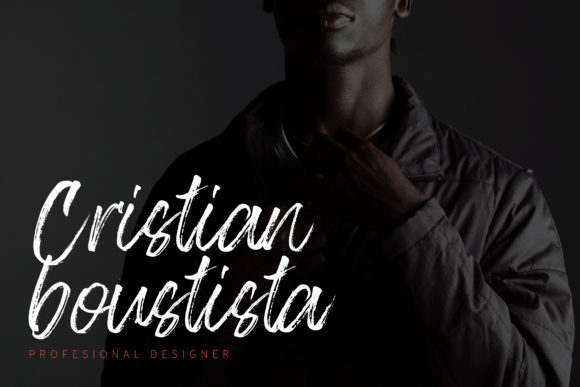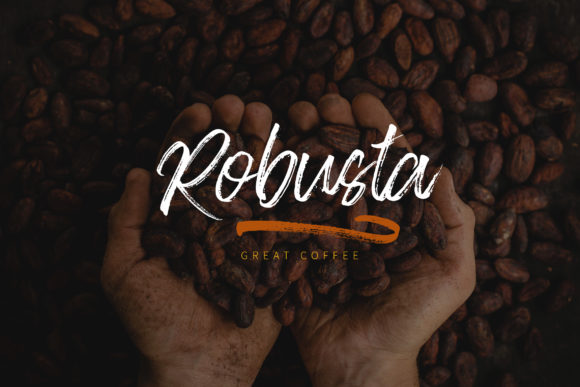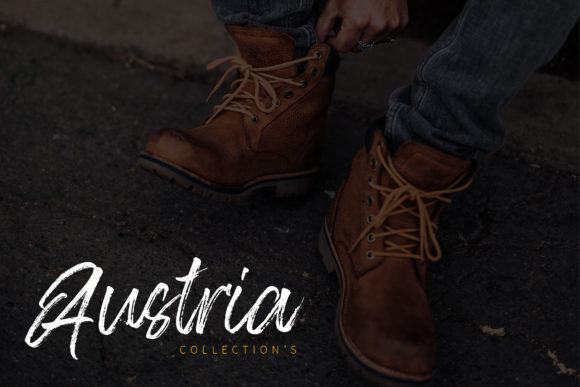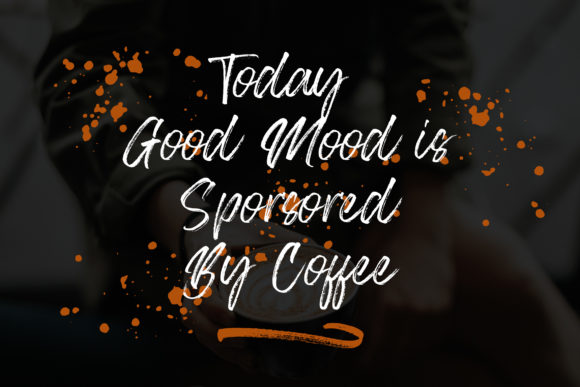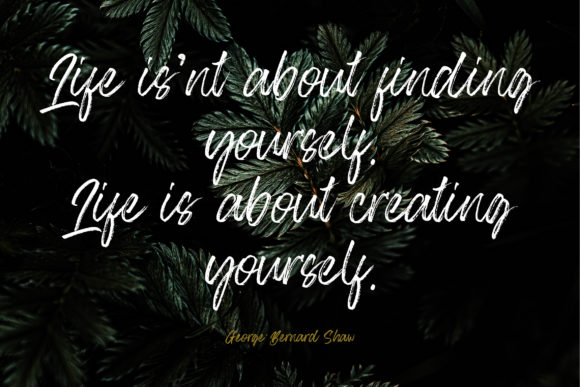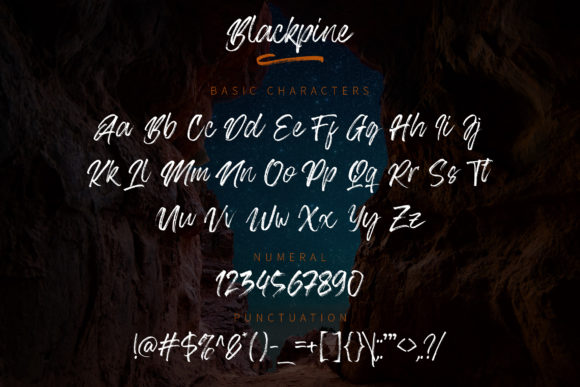
The Designer’s Delight: Getting to Know Blackpine Font
I’ll never forget the time I was working on a branding project for a crafty client, and I just couldn’t find the right font to match her fun and quirky vibe. I scrolled through pages of font libraries, but nothing seemed quite right. That’s when I stumbled upon Blackpine Font, and it was love at first sight! ✨
Created with a brush pen, Blackpine is a casual, fun display font that’s clean and a little bit quirky – perfect for logos, branding, social media, and all your crafty DIY projects. In this article, I’ll share my honest review of Blackpine, a practical guide on how to use it, and some similar font alternatives to consider.
Honest Review: The Good and the Quirky
What I Love About Blackpine Font
- ✨ Unique and playful vibe: Blackpine’s brush pen style gives it a distinctive, hand-crafted feel that’s perfect for creative projects.
- ✅ Clean and legible: Despite its quirky nature, Blackpine is surprisingly easy to read, making it suitable for headlines, titles, and short paragraphs.
- 💡 Versatile: This font can be used for a wide range of projects, from logos and branding to social media graphics and DIY crafts.
While Blackpine is an amazing font, it’s not perfect. Here are a few things to keep in mind:
- 🤔 Limited use for body text: Due to its display nature, Blackpine might not be the best choice for long blocks of text. It’s best used for headlines, titles, and short paragraphs.
- ⚠️ Some letters may require adjustment: Depending on the word or phrase, some letters might need adjusting to ensure proper spacing and alignment.
The Story Behind Blackpine Font
Blackpine Font was created by a talented designer who wanted to capture the carefree spirit of hand-lettering with a brush pen. With a passion for crafty DIY projects and creative hobbies, the designer aimed to create a font that’s both fun and functional. And that’s exactly what Blackpine is – a perfect blend of playfulness and sophistication.
A: Blackpine Font is perfect for logos, branding, social media graphics, DIY crafts, and creative projects that require a fun, playful vibe.
A: While Blackpine is a beautiful font, it’s best used for headlines, titles, and short paragraphs. For longer blocks of text, you may want to consider a more traditional font.